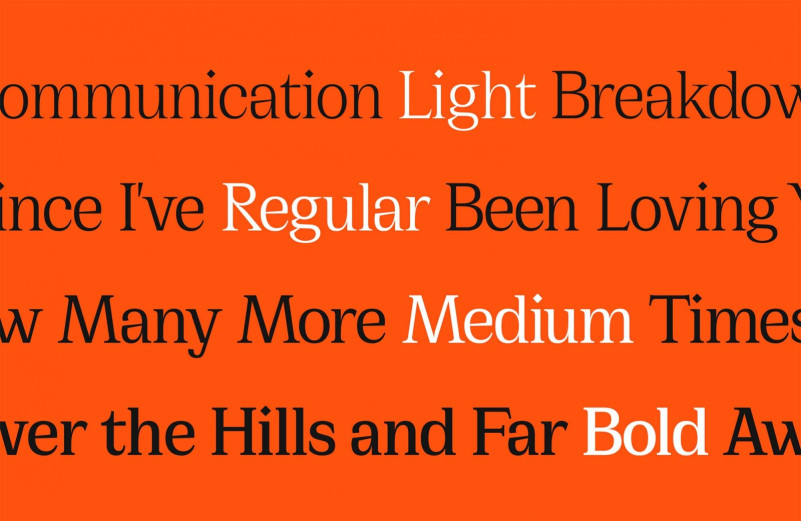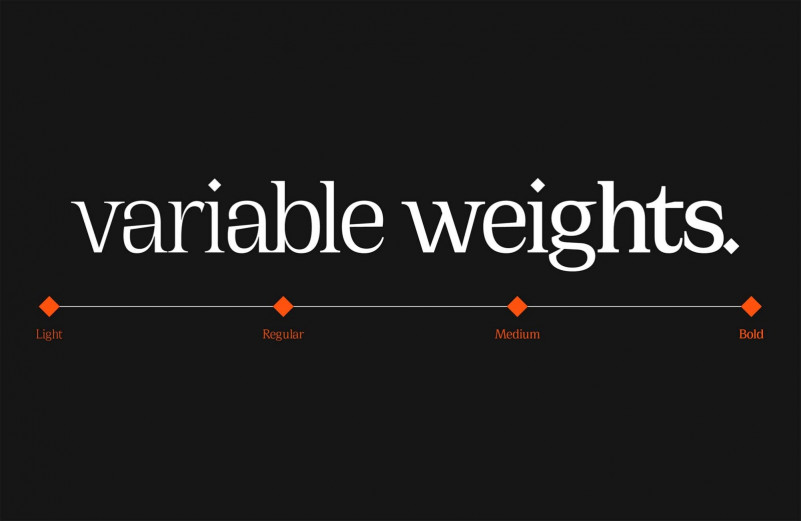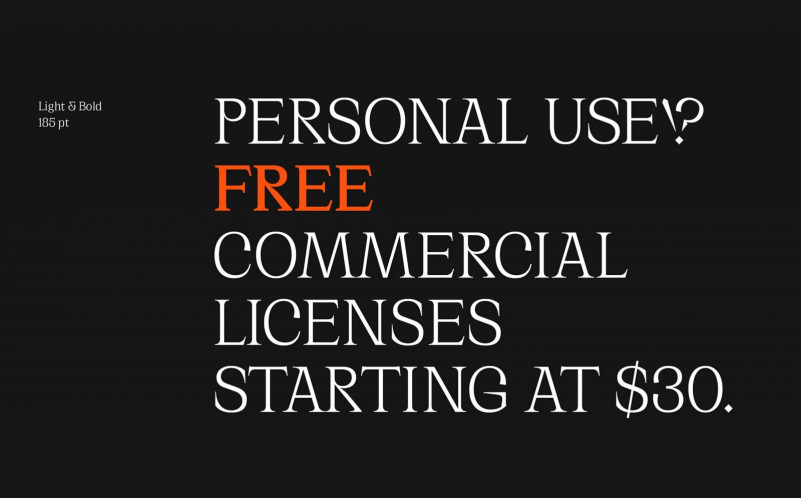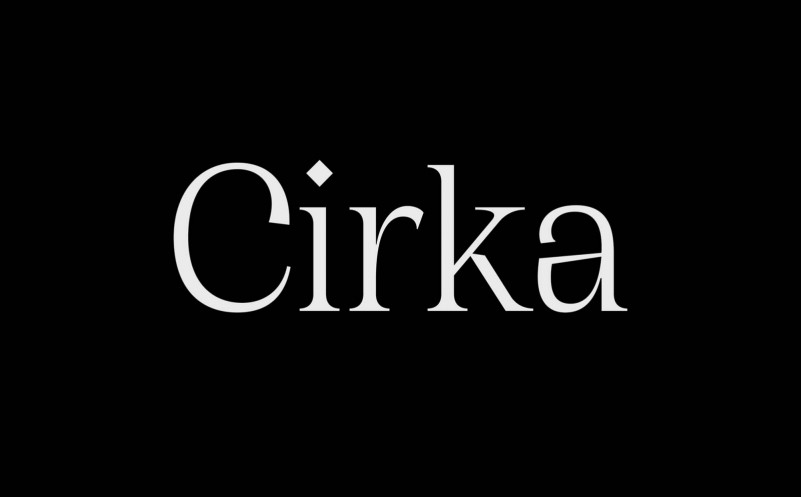
Cirka Typeface
Befonts always want to bring you the best, most beautiful fonts. This is a versatile font that embodies the atheistical demand of the early 1960’s. It’s quirky personality and condensed structure gives it the ability to create prominent​ displays and titles through a myriad of expressions and alternatives. Introducing Cirka Serif Font! Cirka designed and shared by Nick Losacco. Cirka Typeface is an elegant typeface that combines sweeping forms & a vertical axis with sharp, pointy serifs. It works great set large on posters or headers, or small, as body text. The typeface comes in four weights, from light to bold.